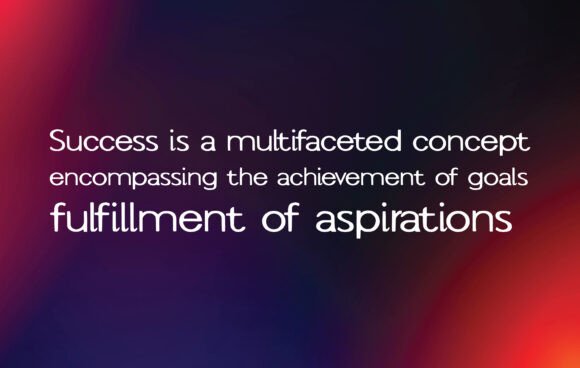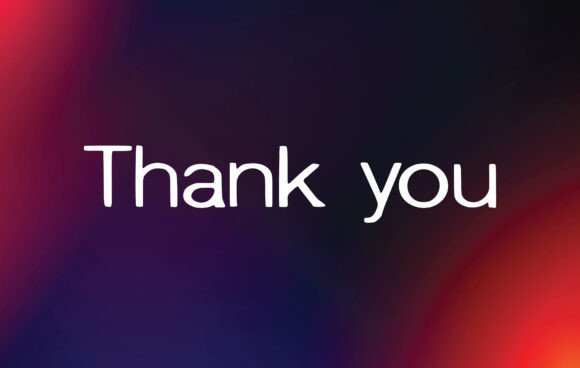
Introduction to Ramon Font
Remember that moment when a brilliant idea struck, and you couldn’t wait to bring it to life? For designers, these moments are what make all the hard work worth it. Whether it’s a new logo design, a captivating brand identity, or a quote that speaks to the soul, the right font can elevate your creative project to new heights.
Key Features of Ramon Font
- Unique, hand-drawn style with a modern twist, ideal for designers seeking a distinctive look
- Available in multiple font sizes and styles, allowing for flexibility in creative projects
- Perfect for designers, artists, and creatives working on a wide range of projects, from logos to typography
Honest Review: Ramon Font
I recently had the chance to work with Ramon Font on a creative project and I must say, it’s been a game-changer. This design resource is perfect for anyone looking to add a touch of sophistication to their work.
- ✨ High-quality design that looks great on any platform.
- ✨ Perfect for creating eye-catching graphics, logos, and branding materials.
One of the things I love about Ramon Font is its versatility. It’s perfect for a wide range of creative projects, from corporate branding to social media graphics. And the best part? It’s a free download, making it accessible to designers of all levels.
- Limitations:
- ⚠️ Limited character set, may not be suitable for large-scale projects.
- ⚠️ May require additional design elements to create a fully comprehensive branding kit.
Overall, I’m really impressed with Ramon Font. It’s a high-quality design resource that’s perfect for anyone looking to elevate their creative project. Whether you’re a seasoned designer or just starting out, Ramon Font is definitely worth checking out.
Ramon Font
Getting the Most Out of Ramon Font
For optimal results, use Ramon Font in combination with other high-quality design resources. Experiment with different font sizes, colors, and arrangements to create visually appealing designs.
Ramon Font is ideal for creative projects, such as:
- Infographics and data visualizations
- Brochures and marketing materials
Alternatives to Ramon Font
Open Sans is a high-quality, free download font that is suitable for various design projects. It’s clean, modern design makes it perfect for digital products and creative projects that require a clear and transparent background. Open Sans is a versatile font that can be used for both body and title text.
Compared to Ramon Font, Open Sans has a more straightforward design and lacks the ornate details of Ramon Font. However, Open Sans is a better choice for digital products due to its clean and modern aesthetic.
Montserrat is a free download font that is designed for digital products and creative projects. It’s a high-quality font that features a geometric design with clean lines and a transparent background. Montserrat is perfect for use in creative projects that require a modern and sleek design.
Compared to Ramon Font, Montserrat has a more modern and geometric design that makes it perfect for digital products. However, Montserrat lacks the ornate details of Ramon Font.
Can I modify the Ramon Font for my specific design needs?